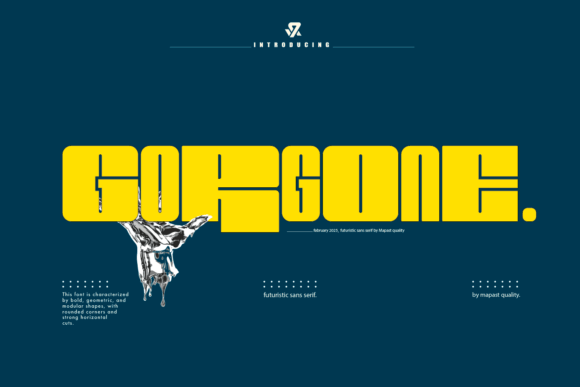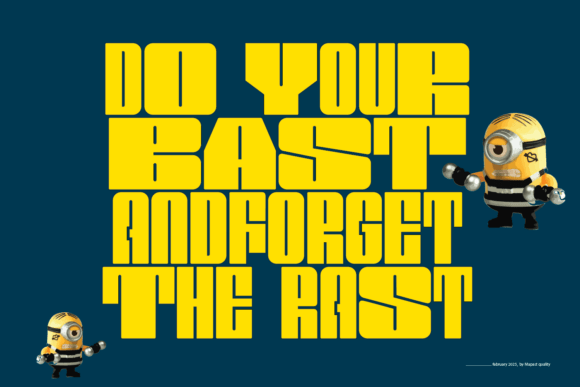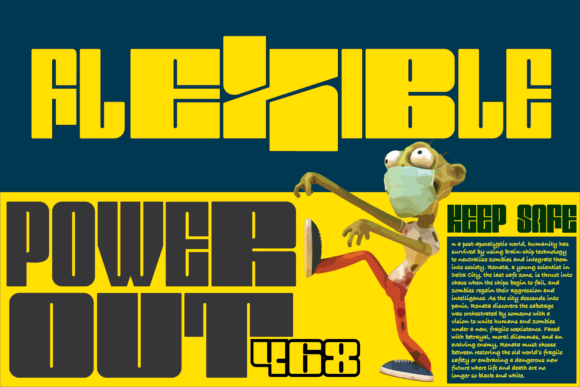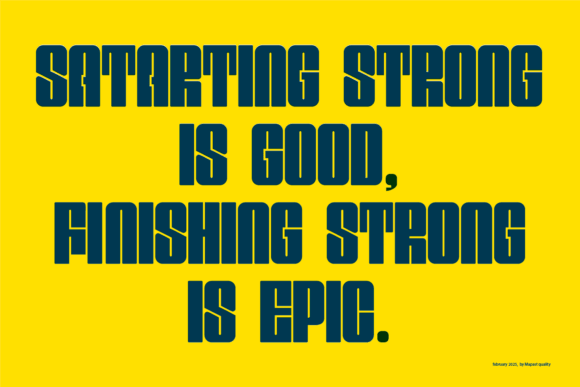
Gorgone Font: Bold & Geometric Sans Serif for Modern Logo Design
About the Gorgone Font
Get ready to be inspired by Gorgone Font, a fresh and dynamic typeface for modern creators. Gorgone, is a bold and highly geometric futuristic sans serif. Its key characteristics include:
Modular and Geometric Shapes: Each letter appears to be based on rectangular proportions with rounded corners, giving it a modern and industrial feel.
Strong Horizontal Cuts: Distinct horizontal cuts are noticeable in letters like “G” and “E,” adding a dynamic, futuristic element to the design.
Rounded Corners: The rounded edges strike a balance between boldness and friendliness—sharp yet approachable.
High Contrast Colors: The use of bright yellow on a deep blue background makes the font stand out prominently.
Futuristic Aesthetic: Overall, the design evokes a sense of futurism, making it well-suited for technology or modern-themed projects.
This font exudes a strong, masculine, and bold personality, making it ideal for branding or designs that require a powerful visual presence.
Gorgone Font Usage Examples
Gorgone Font Example